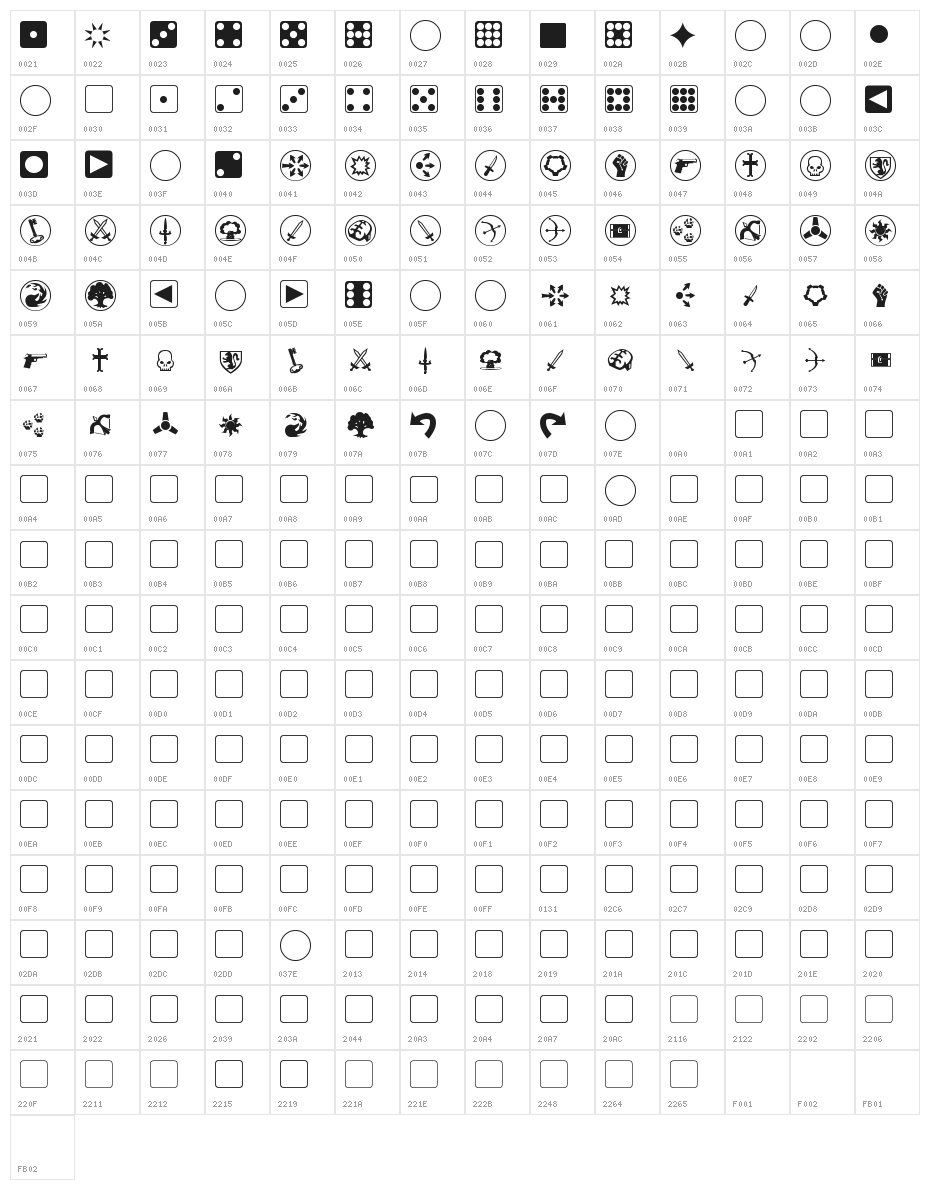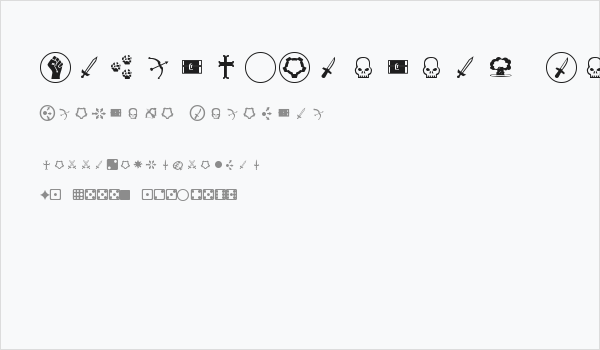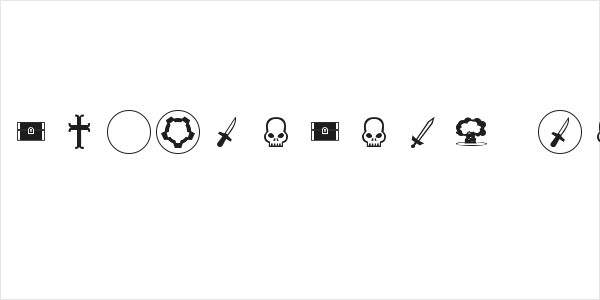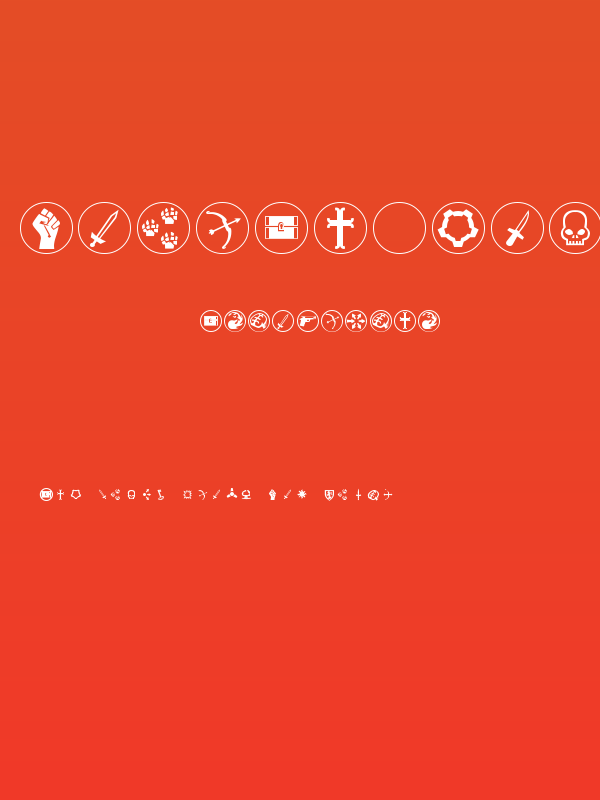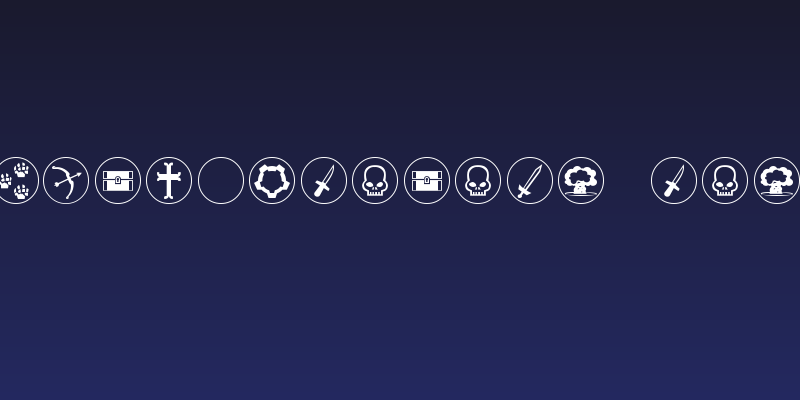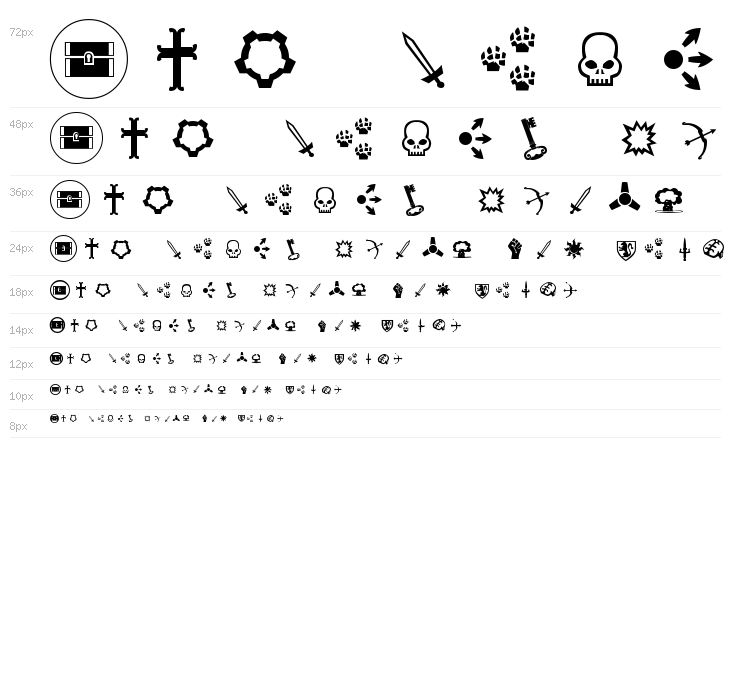
Fourth-Edition Dings Font
Fourth-Edition Dings Description
This set of symbols features a diverse array of icons, each enclosed within a circle, depicting various themes such as weaponry, nature, and abstract designs. The symbols include swords, shields, fists, and other elements that suggest themes of combat and strategy. Additionally, there are icons representing nature, like trees and waves, as well as abstract symbols that could be used for various thematic purposes. The style is bold and clear, making each icon easily recognizable. The symbols are monochromatic, enhancing their versatility for different design applications.
| Use Case | Icons, Game design, Thematic branding |
| Proposed Projects | Ideal for tabletop game design, fantasy-themed projects, role-playing game materials, and thematic branding. |